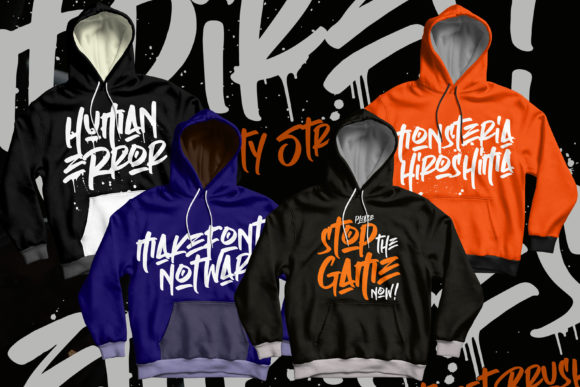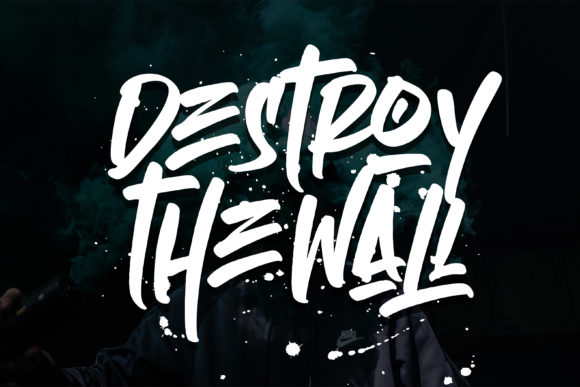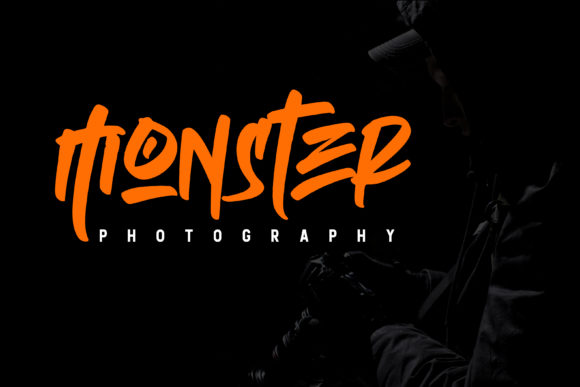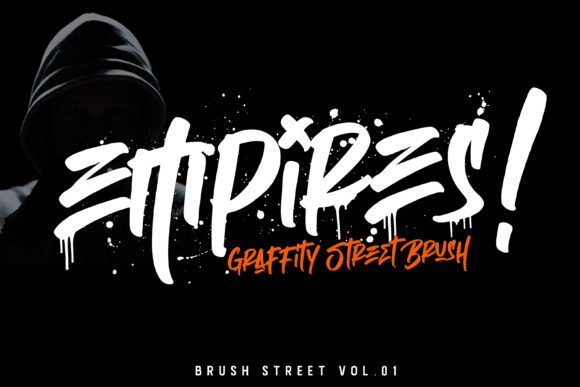
Introduction to Empires Font
The Empires is a supercharged, street-wise brush font bursting with energy.
Included is the regular version and a swash version, which can be used to give your design some extra roughness It’s ideal for logos, apparel, t-shirts, hoodies, quotes, product packaging, and anything which needs a typographic turbo-boost.